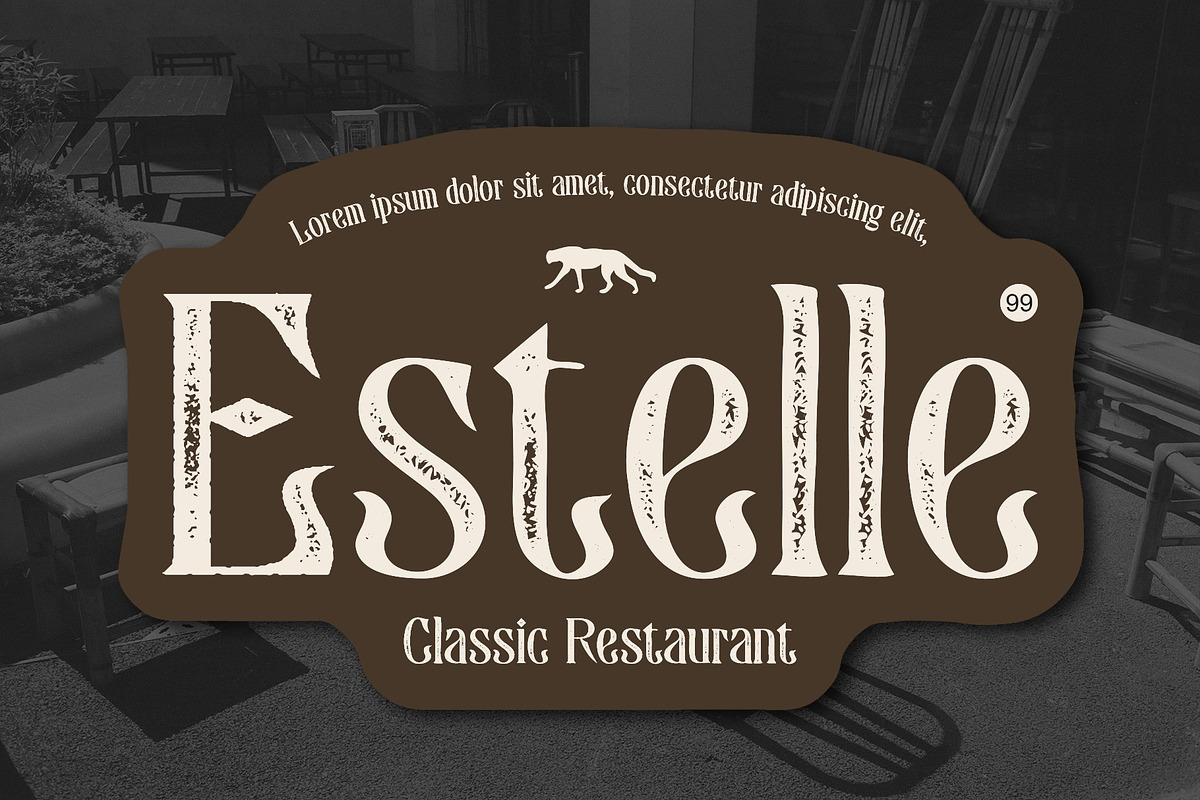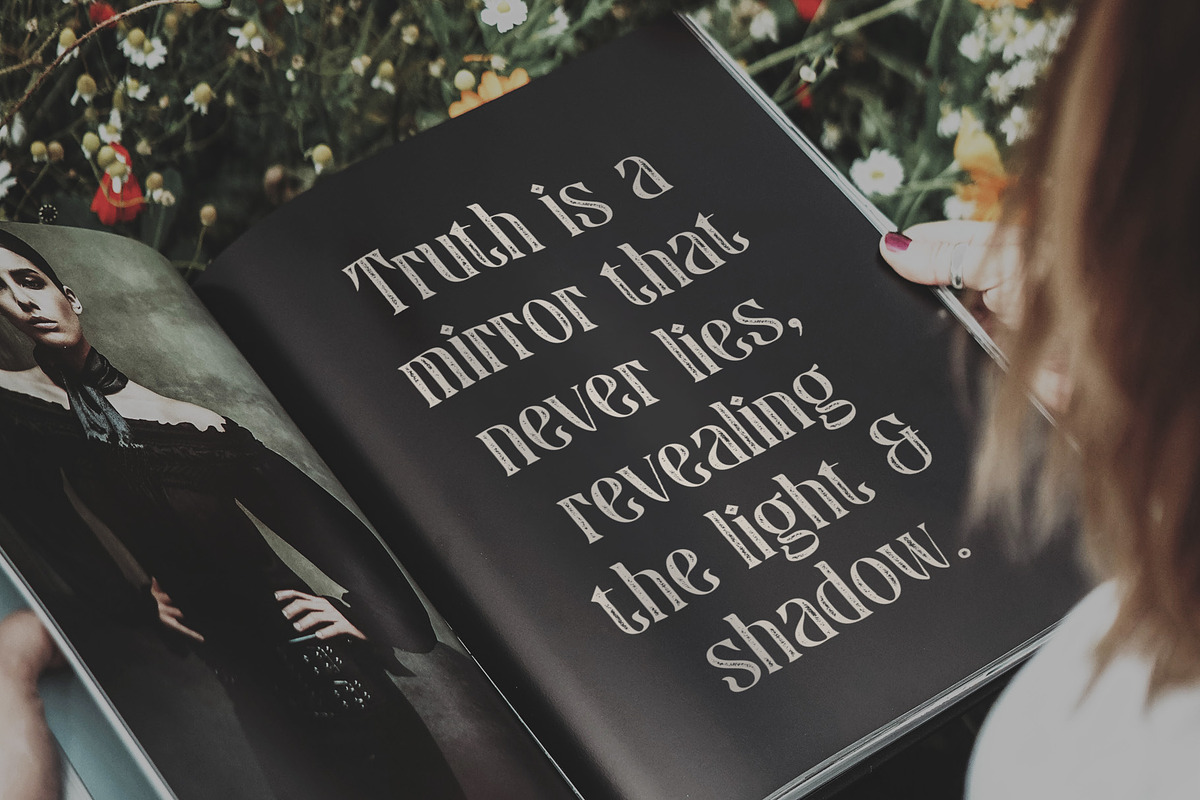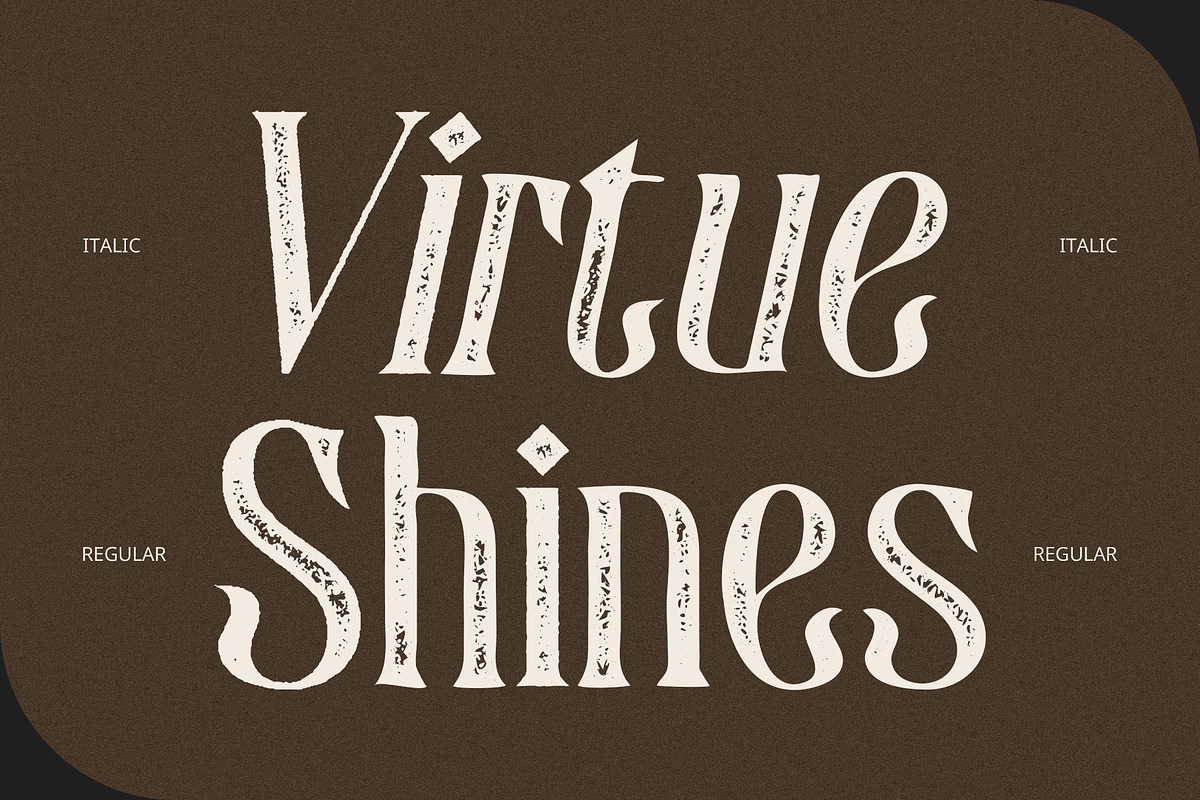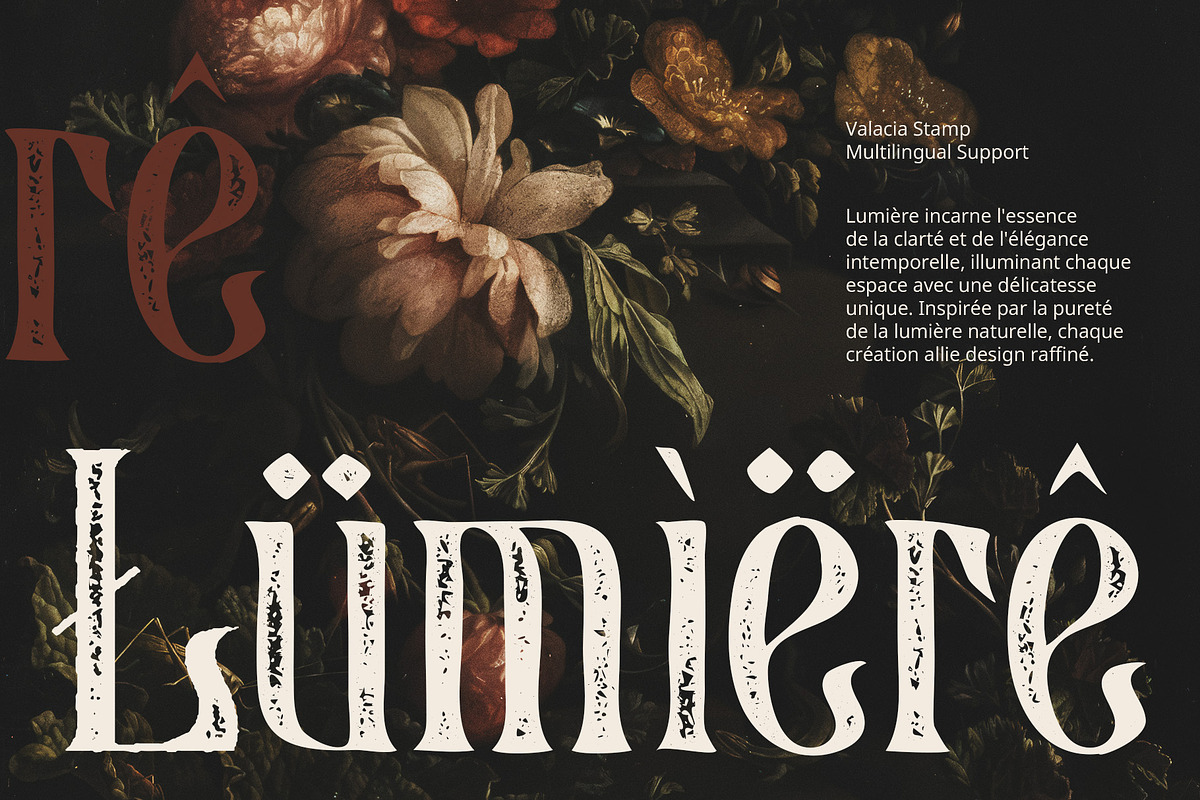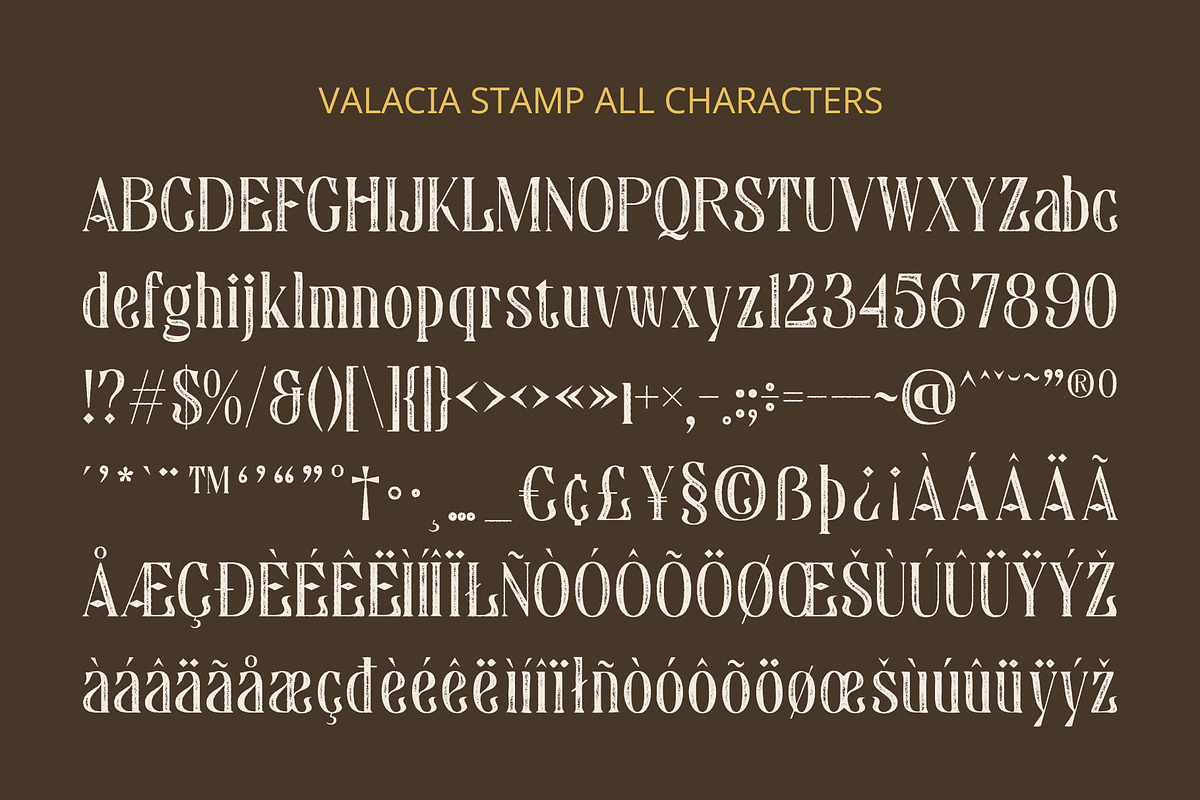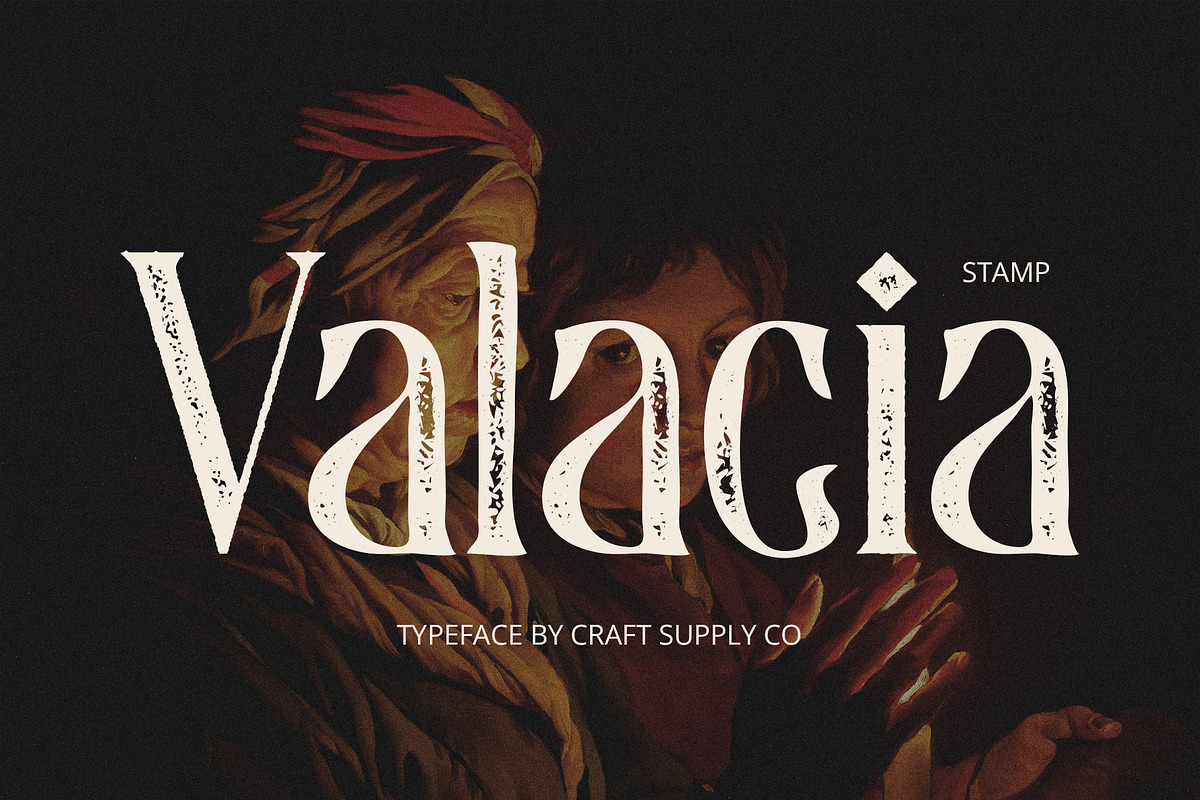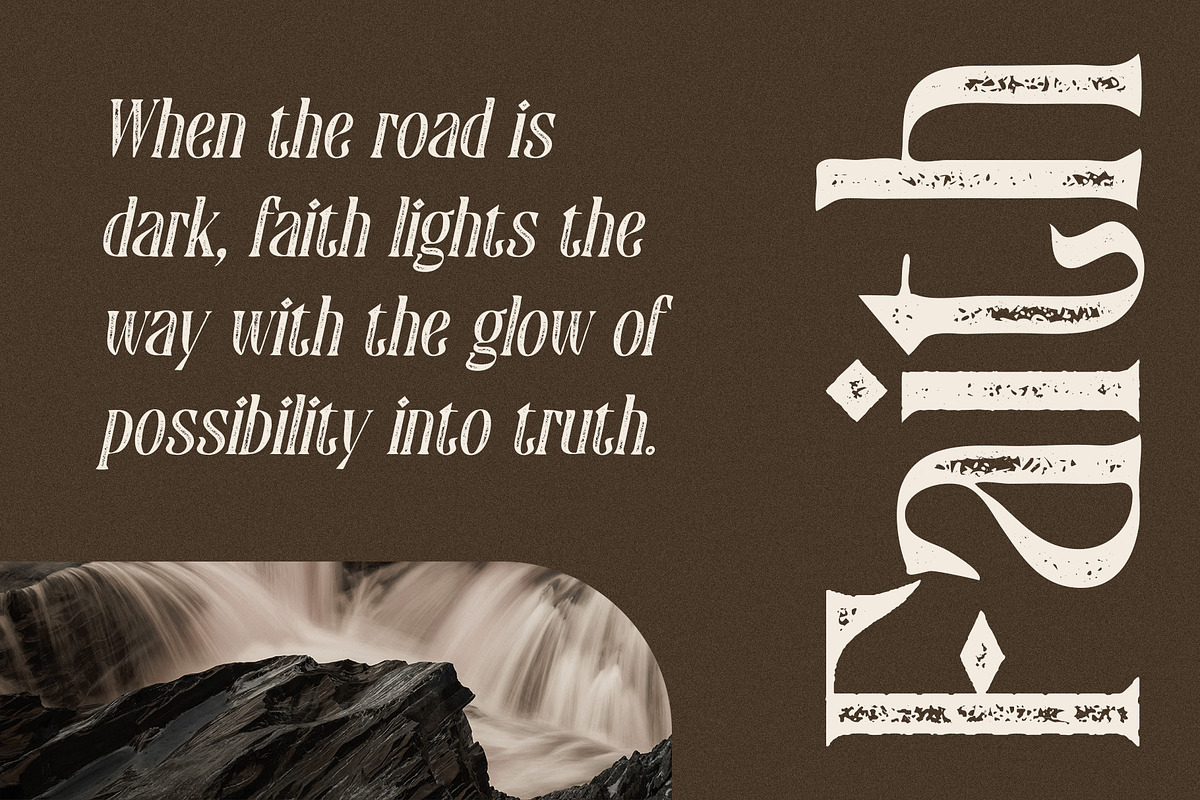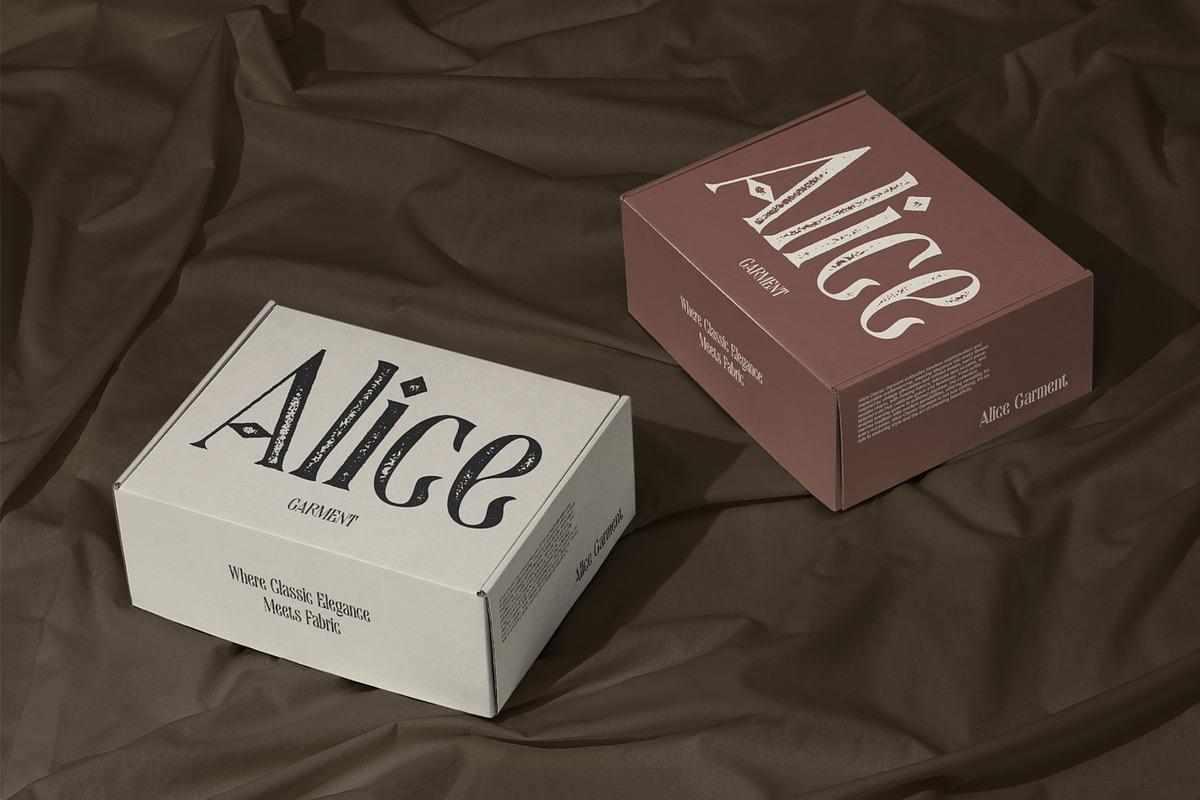
Valacia Stamp
Valacia Stamp Font: Elegant Serif with a Timeless, Textured Touch
Classic Elegance with a Contemporary Twist Valacia Stamp is a modern display serif font that combines the sophistication of traditional design with a contemporary touch, enhanced by a distinctive stamp effect. Its sleek and polished serifs create a timeless and luxurious impression, while the bold, textured stamp effect adds an authentic, tactile feel, as though the font has been pressed or stamped with precision. The contrast between the classic and the textured brings a refined yet powerful energy.
Rich, Textured, and Authentic The stamp effect provides a unique, dynamic look, making each letter appear as if it were crafted with care and precision. This rich texture elevates the font, offering a sense of authenticity and strength. Whether used in large headings or body text, Valacia Stamp ensures that your design conveys both prestige and personality, giving projects a distinctive and memorable quality.
Perfect for Luxury and Vintage-Inspired Designs Valacia Stamp is an excellent choice for designs that want to blend the formal beauty of classic typography with a touch of vintage flair. Perfect for exclusive invitations, luxury branding, high-end editorial layouts, or any project that seeks to evoke sophistication and prestige, this font enhances its surroundings with a powerful yet graceful presence. It’s ideal for designs that aim to evoke timeless elegance while maintaining modern relevance.